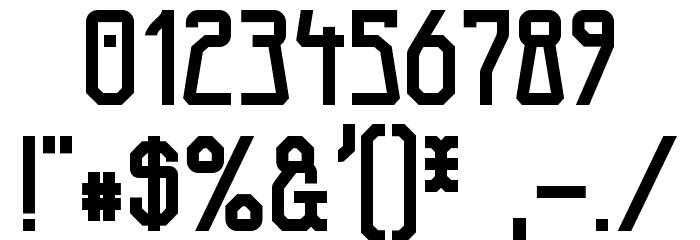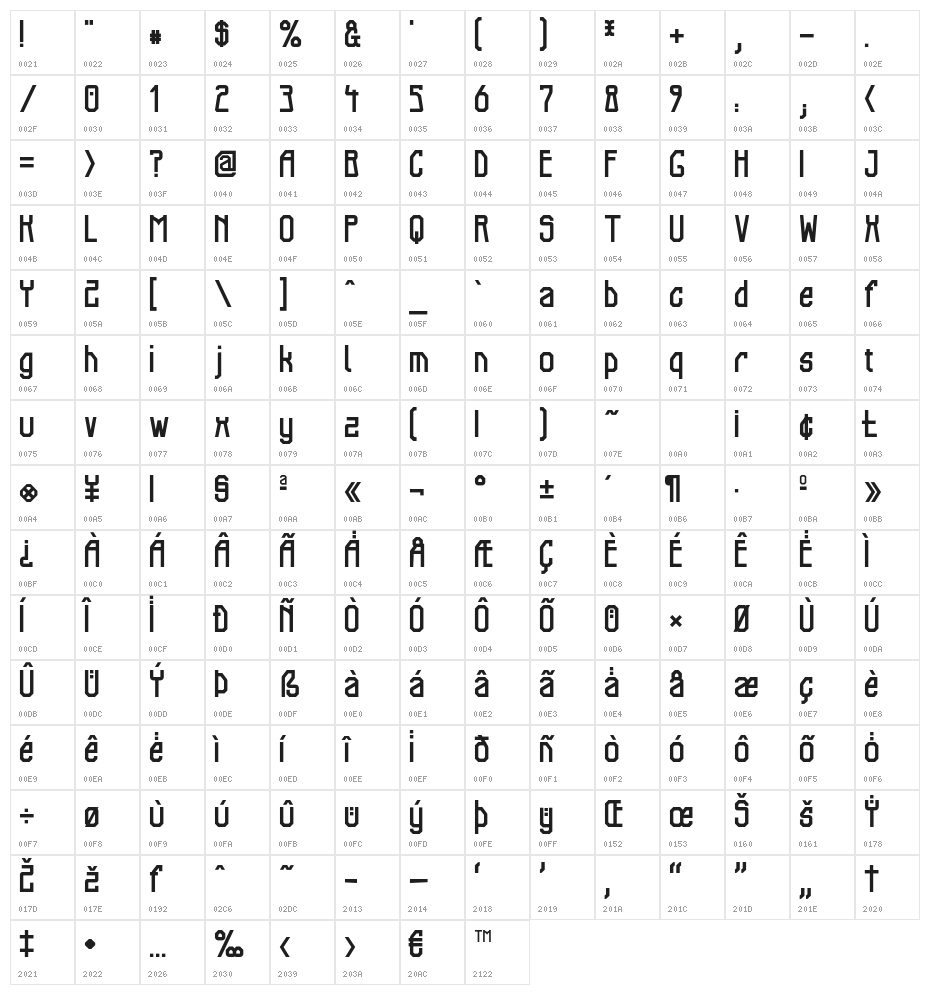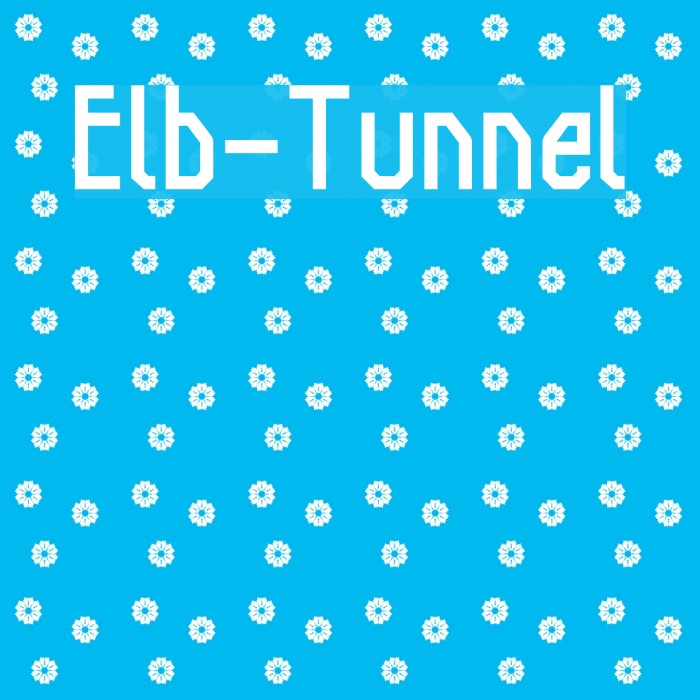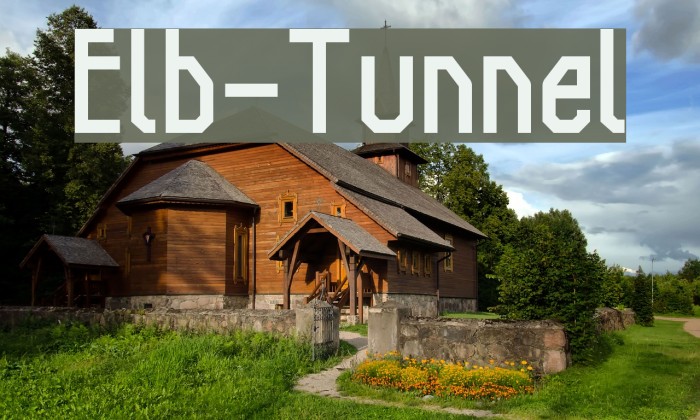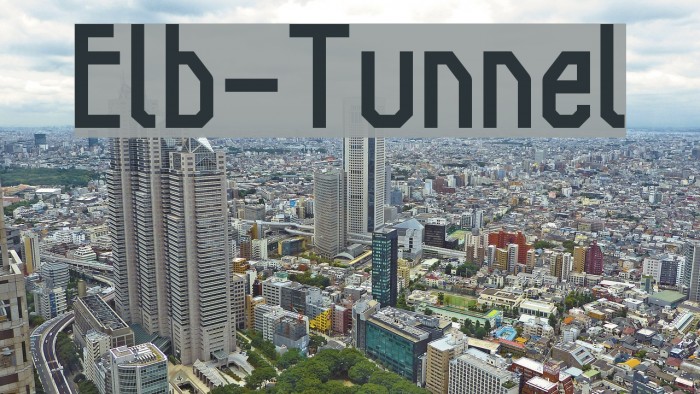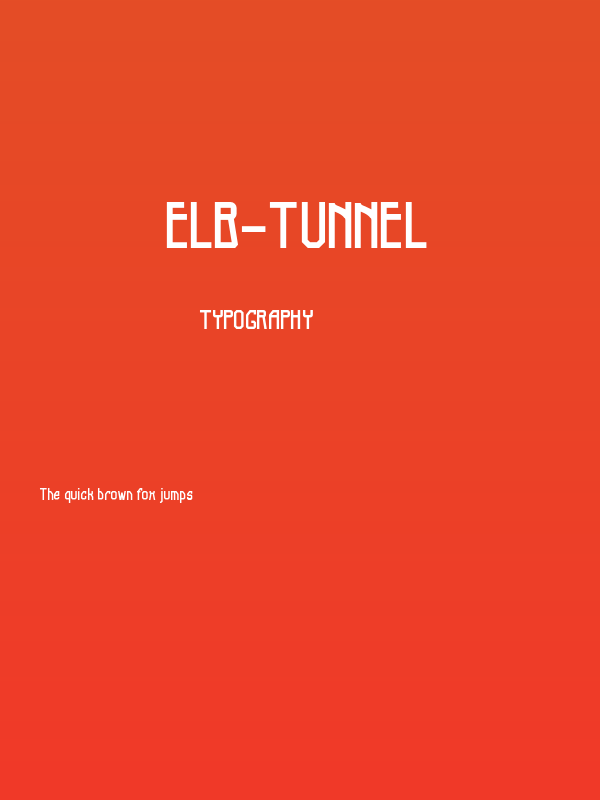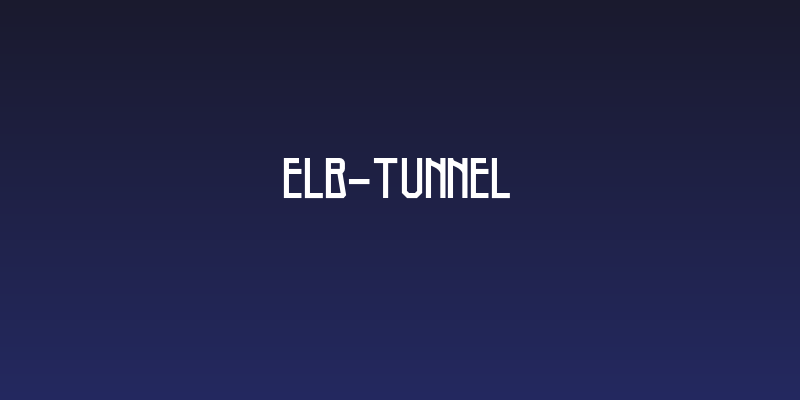
Elb-Tunnel Font
Elb-Tunnel Description
This font features a bold, geometric design with a distinct industrial feel. The characters are constructed with straight lines and sharp angles, giving it a modern and edgy appearance. The uppercase letters are tall and narrow, while the lowercase letters maintain a consistent style, providing a cohesive look. The numerals and special characters follow the same geometric pattern, ensuring uniformity across all glyphs. This font's unique style makes it stand out, ideal for projects that require a strong visual impact.
| Proposed Projects | Ideal for branding, posters, signage, and any project requiring a bold, modern look. |